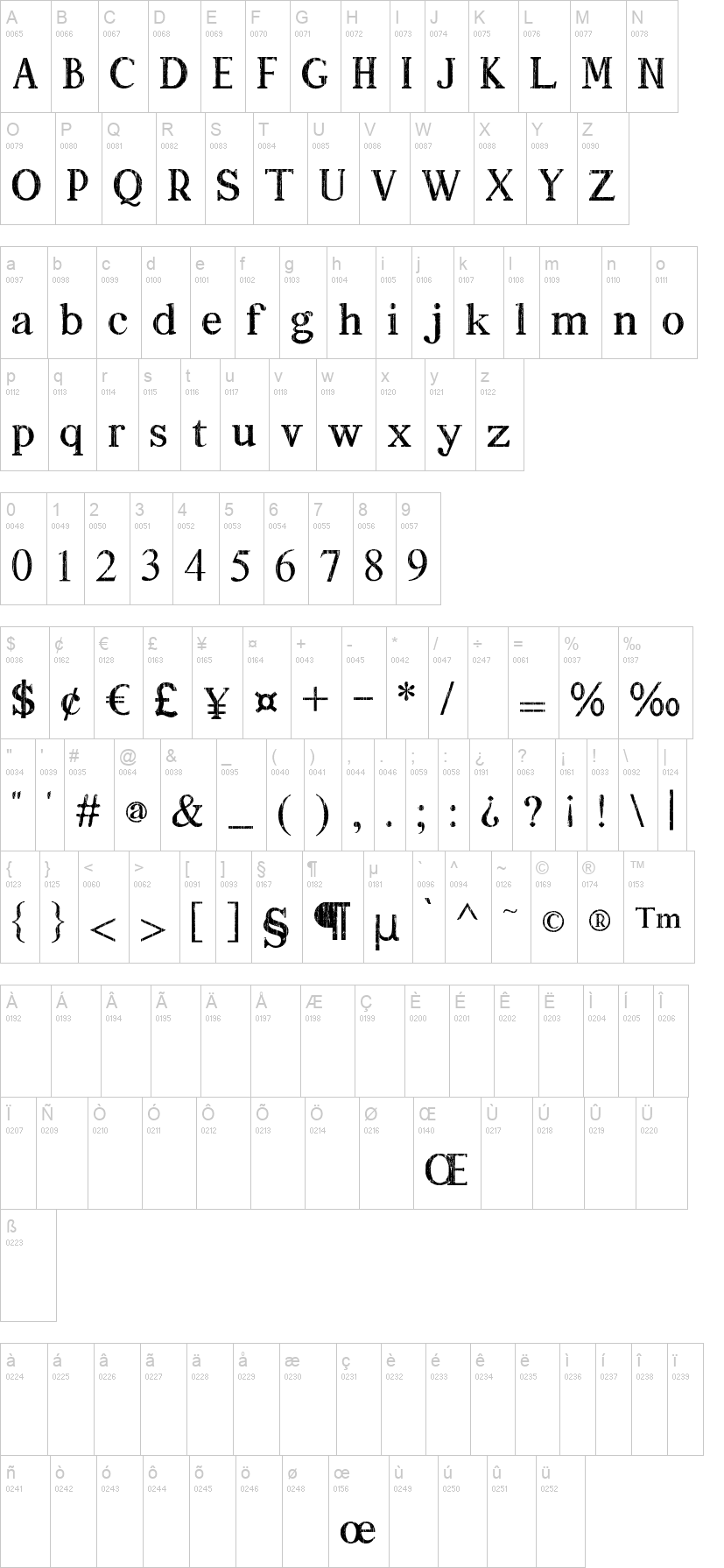
Athoor Style Brush Clean
Suamzu Art
Athoor Style Brush Clean is a bold and unique display font. Add this font to your creative ideas and notice how it will make them stand out!